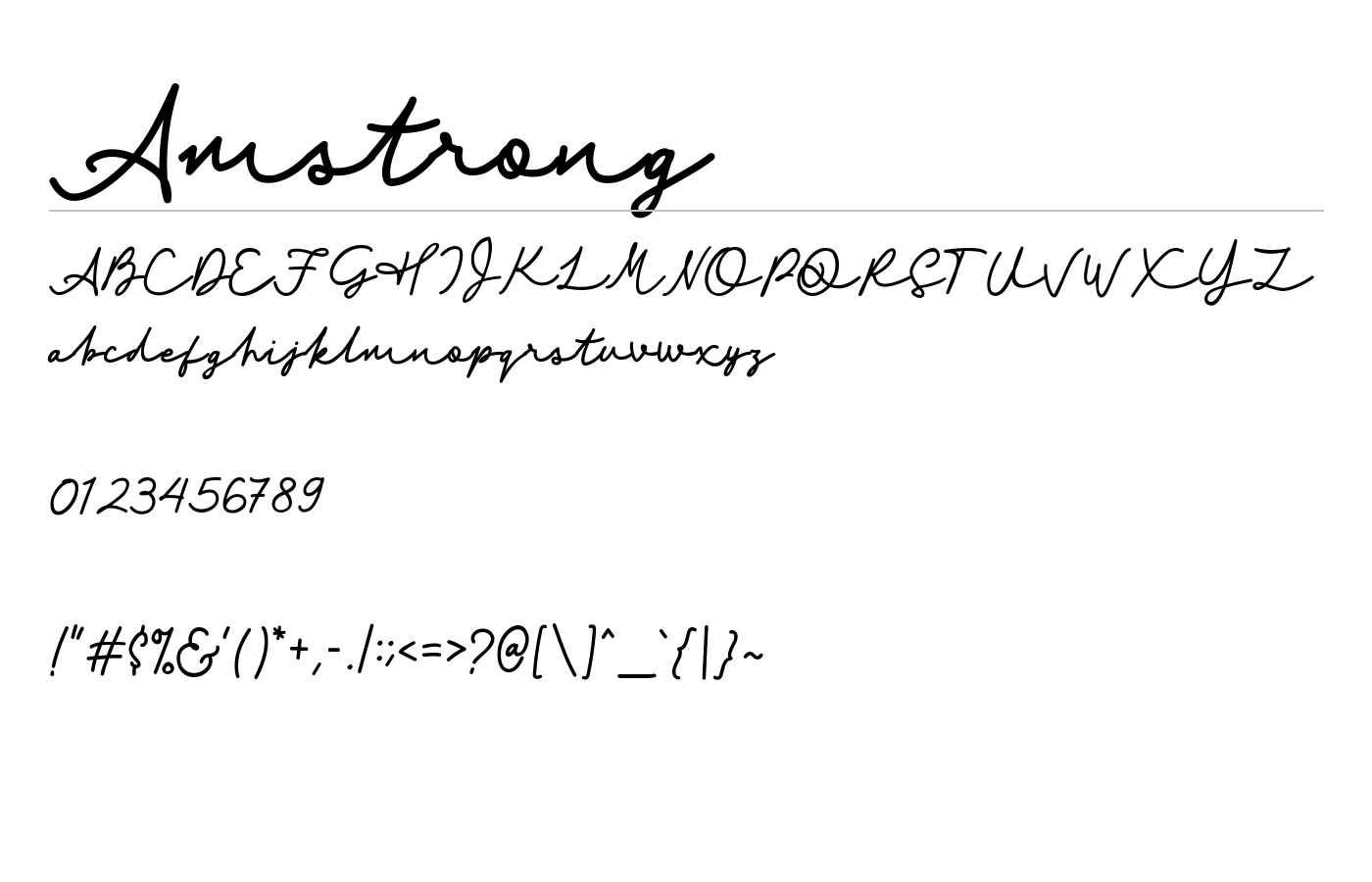
Amstrong is an elegant script font that mimics natural handwriting with smooth, flowing strokes and a casual, personal feel. Its thin, consistent lines and slightly upright slant make it perfect for creative projects, invitations, and branding that seek a friendly yet refined touch. This font works well in contexts where a handwritten, approachable style adds charm without sacrificing legibility.
Amstrong Font